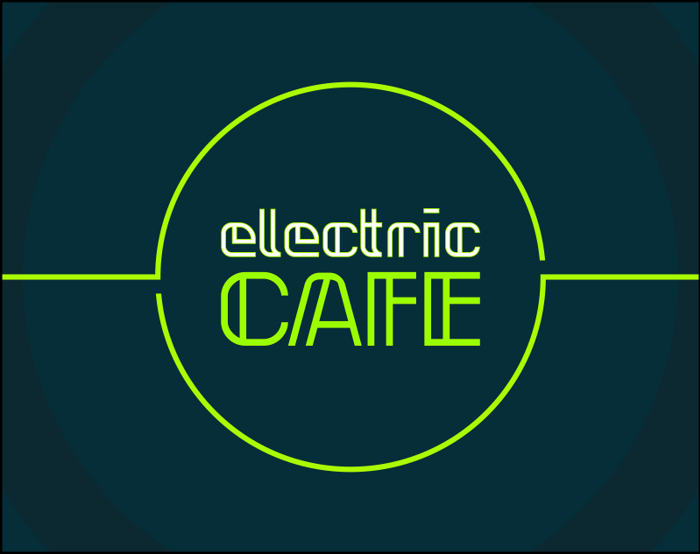
Neonclipper Font
Neonclipper is a modular experimental font. Good for signs, posters, flyers, etc, or anywhere you need unique looking font as support for your main text font.